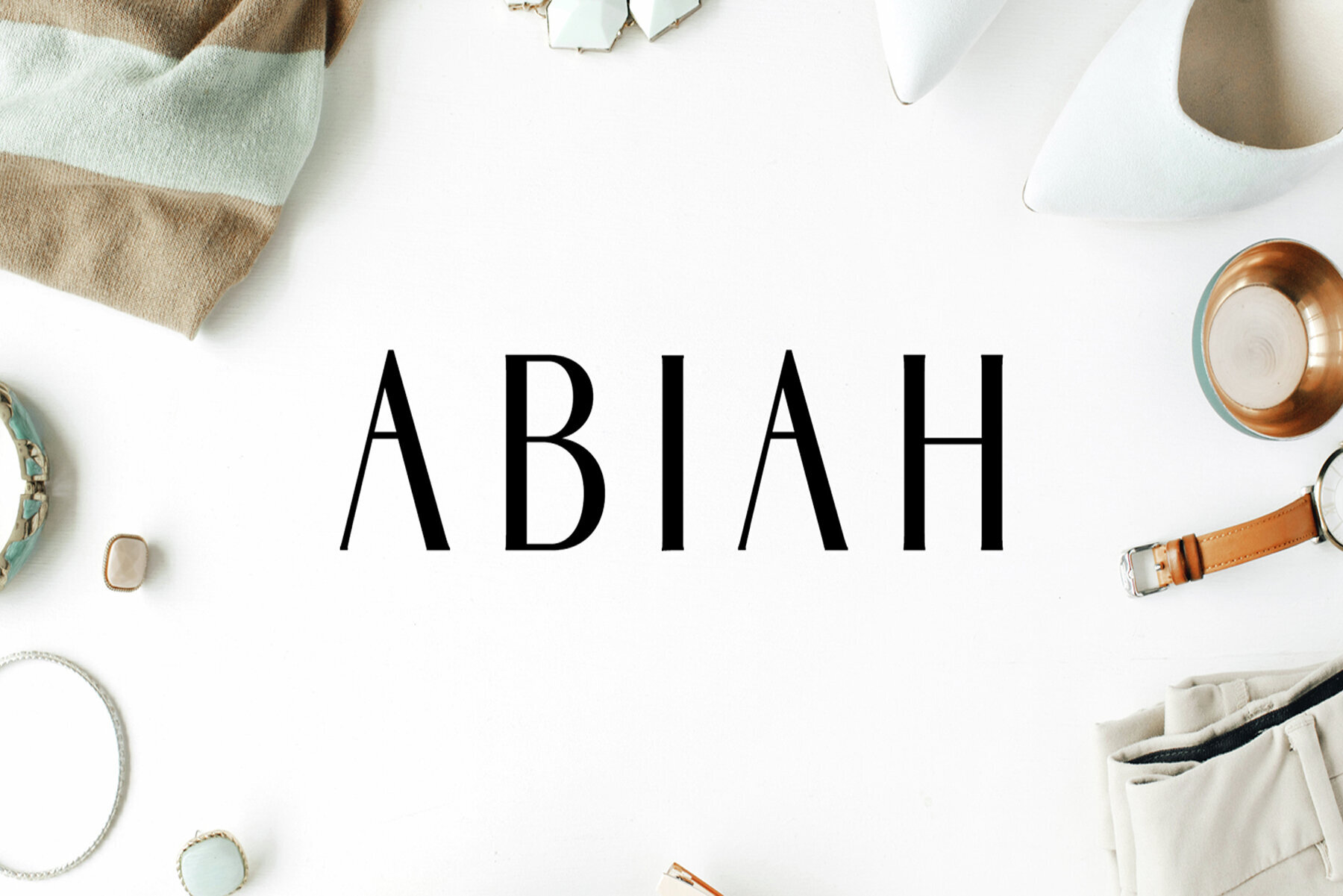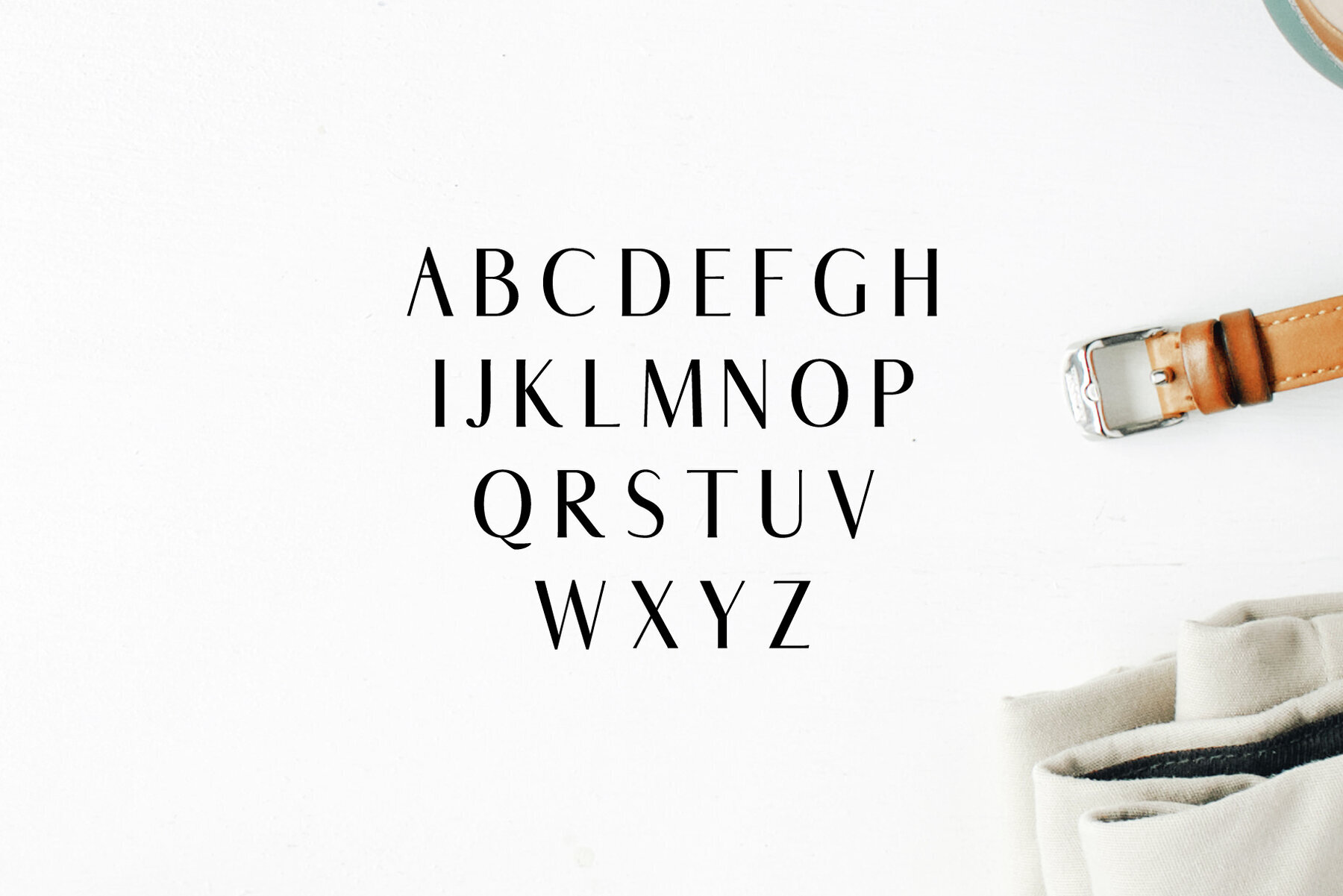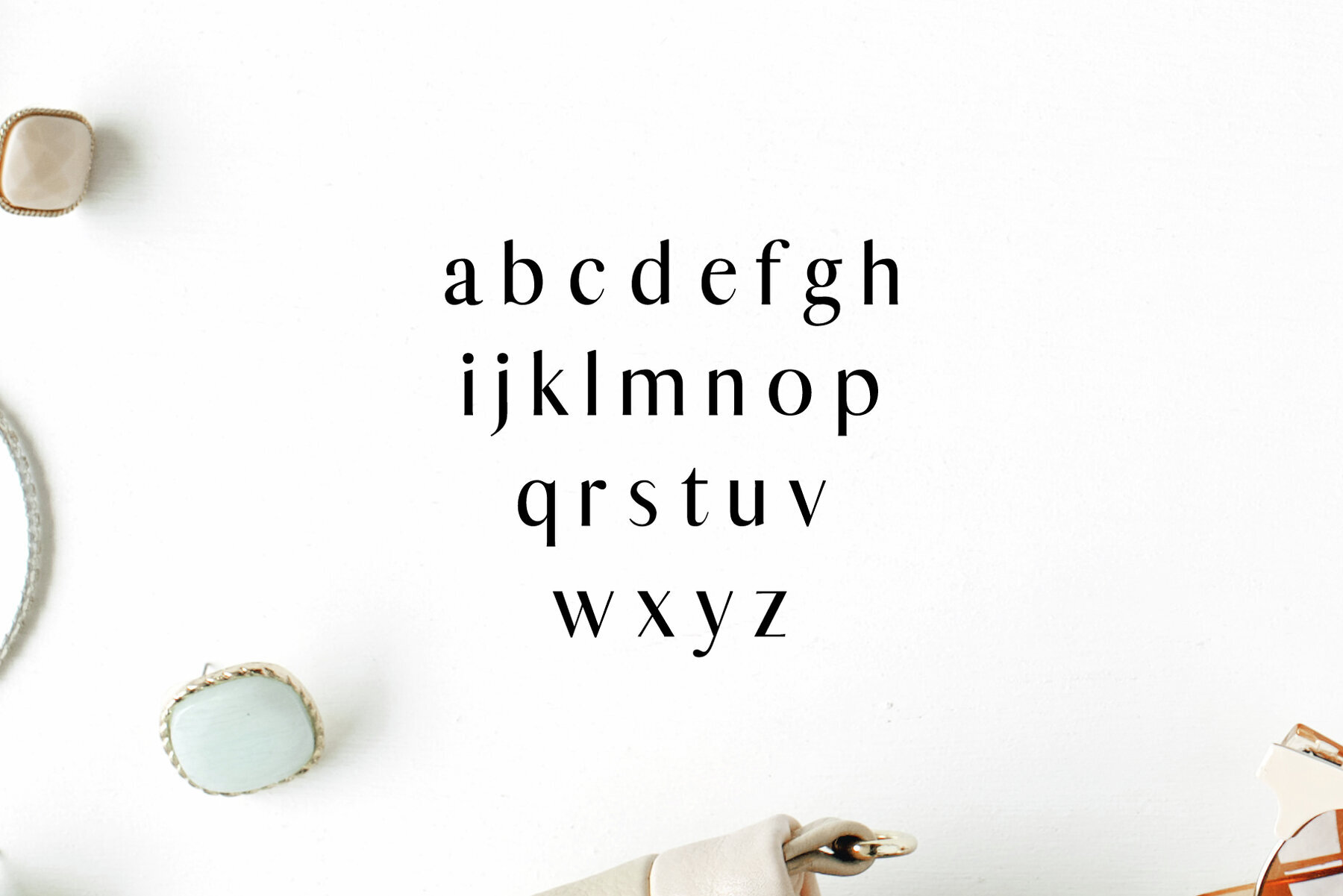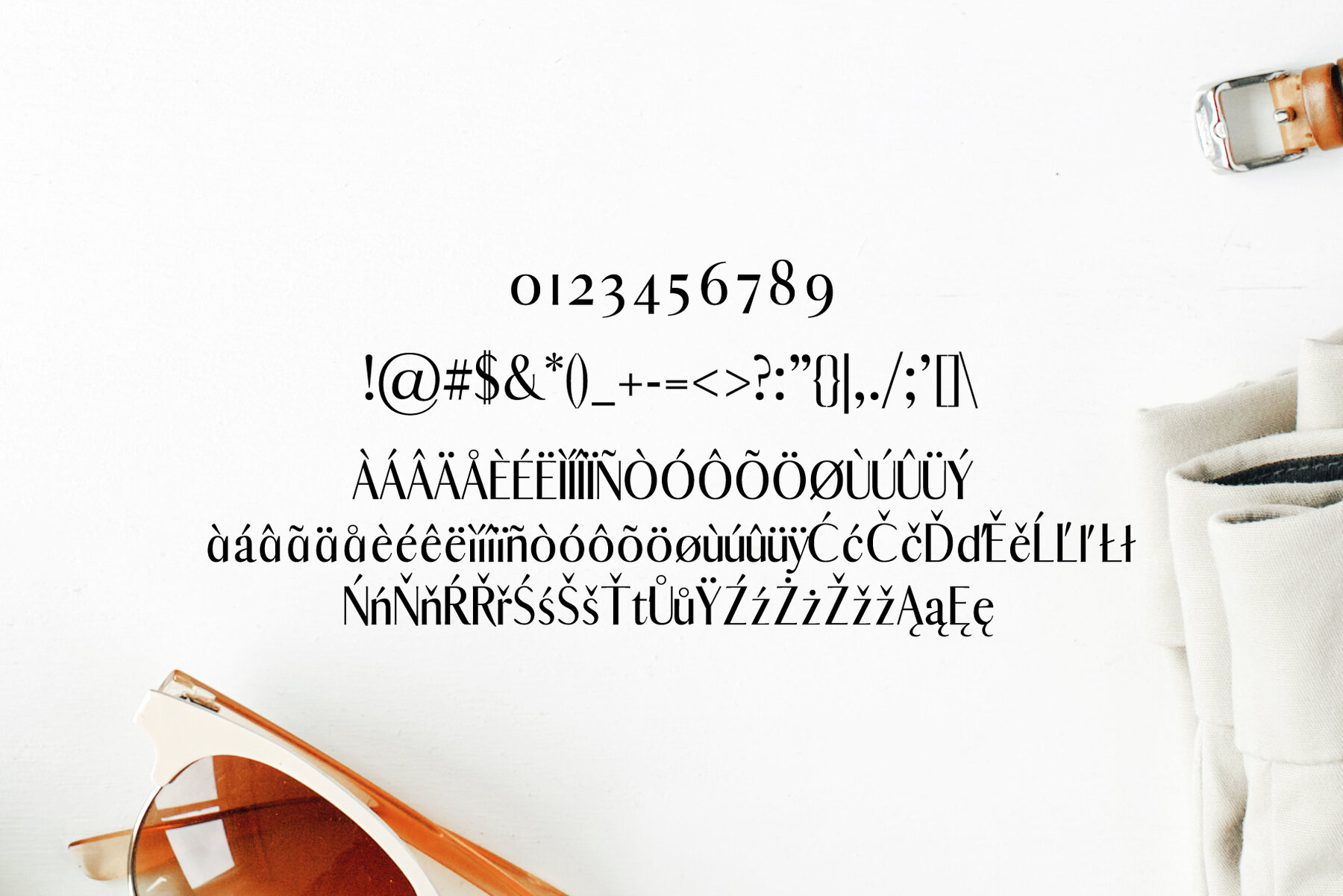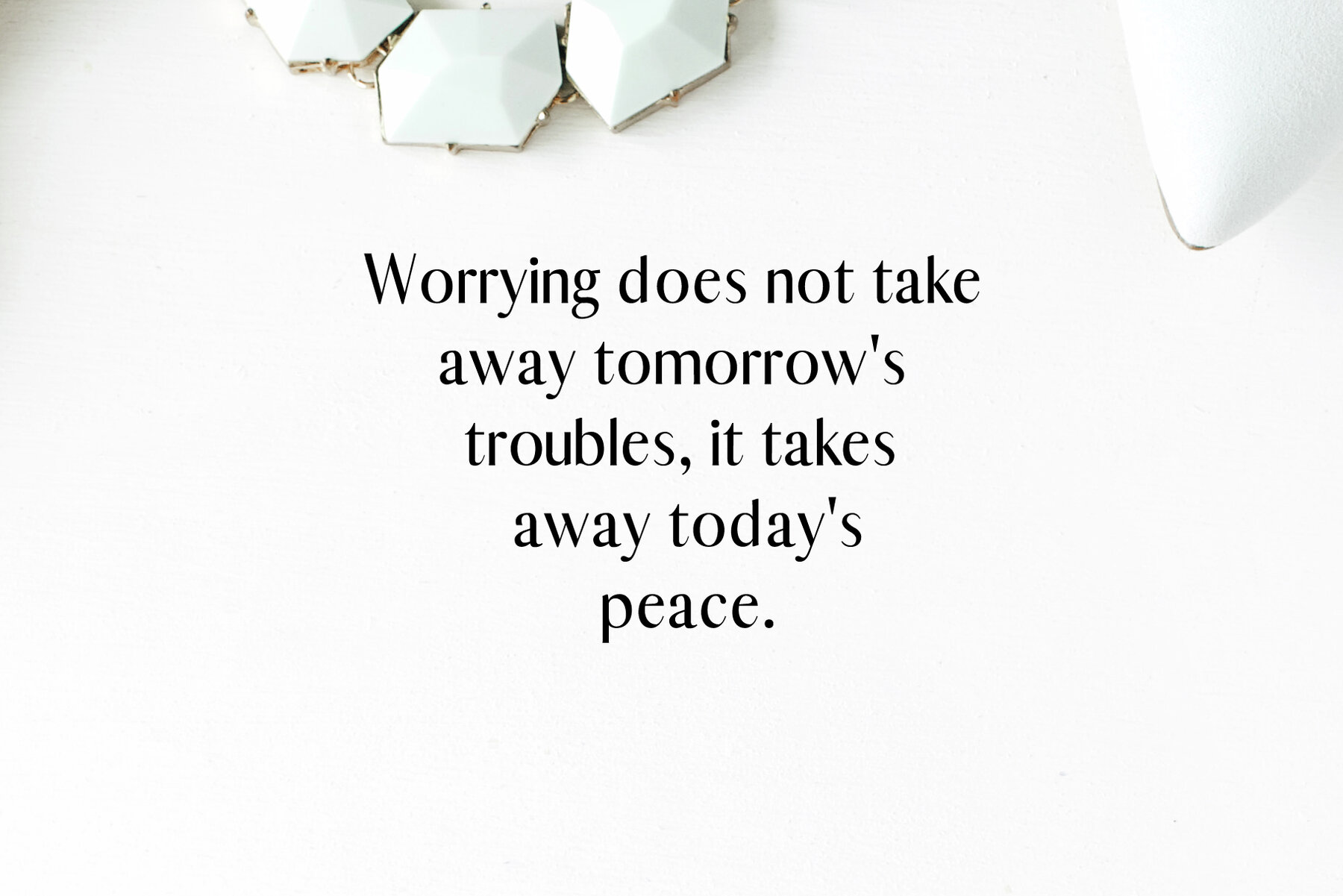
Abiah Font
Abiah Regular
Abiah Sans Serif Font Family is a minimal and modern font kit that includes 5 versatile weights. Ideal for creating stunning logos, refined titles, sophisticated web layouts, and cohesive branding, this font set offers a unique sans serif appeal. With its wide-set spacing, it looks especially striking in all caps for a classy and elegant style, but also maintains timeless beauty when used in both capital and lowercase letters.
This font family supports numerous characters for multilingual use, including uppercase and lowercase letters, numbers, punctuation, and various non-English characters. Some notable features include extended Latin characters and supplemental Latin glyphs, making it highly adaptable for international design projects. Abiah is perfect for designers seeking to create clean, minimalist designs with a contemporary edge.